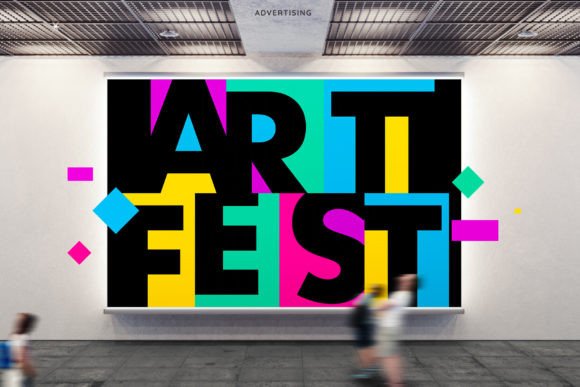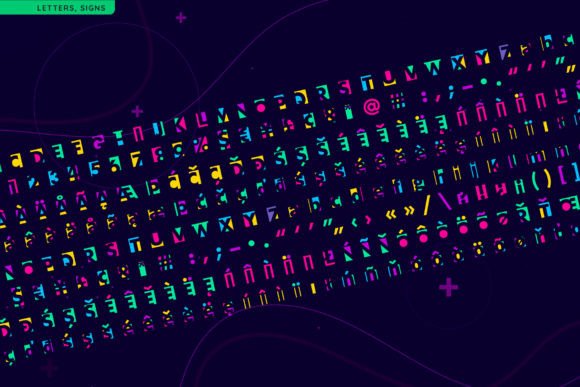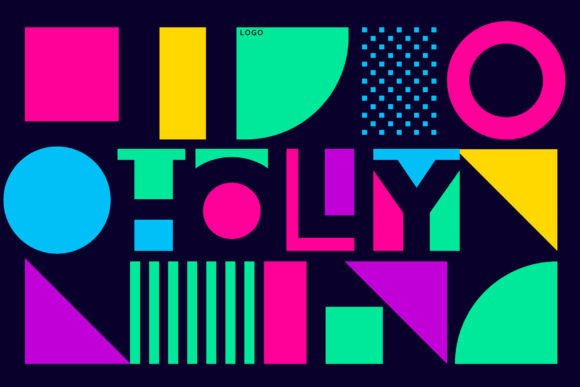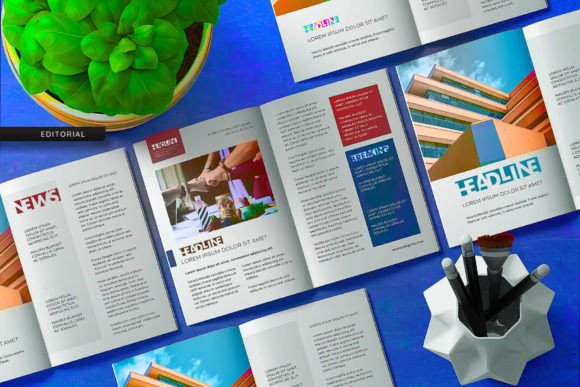
Introducing Festiva Font: The Ultimate Geometric Fun Display Font for Bold Party Vibes
Have you ever been in the middle of a design project, and suddenly, you just can’t seem to find the right font? I recall a particularly frustrating experience while working on a birthday party invitation design. My client wanted something vibrant, energetic, and utterly unique. After hours of scouring through font libraries, I stumbled upon the Festiva font. It was love at first sight! ✨
The Festiva font is a Geometric Fun Display Font that combines colorful shapes, bold modern colors, and Mexican or Indian festive vibes. This lively font is perfect for creating vibrant, energetic designs for parties, events, and entertainment branding, bright geometric logos, Mexican or Indian fest headlines, birthday greeting cards, and school project designs.
An Honest Review of Festiva Font
What I Love About Festiva Font
- 🎉 Vibrant and Energetic: Festiva font is designed to make a statement. Its bold, geometric shapes and colorful negative space make it perfect for designs that require a lively touch.
- ✅ Highly Versatile: This font can be used for a wide range of design projects, from party invitations to event branding, and even school project designs.
- ✨ Unique and Creative: The Festiva font’s unique blend of geometric shapes and festive vibes makes it stand out from other fonts in the market.
While the Festiva font is an amazing design tool, there are a few things to keep in mind: 🤔
- ⚠️ Legibility at Small Sizes: Due to its bold and geometric nature, the Festiva font may not be the best choice for small font sizes or body text.
- ⚠️ Color Limitations: While the font comes with a range of color options, it may not be suitable for designs that require a specific color scheme or branding.
The Backstory of Festiva Font
The Festiva font was designed with the intention of capturing the vibrant and energetic spirit of Mexican and Indian festivals. The designer wanted to create a font that would be perfect for designs that require a bold and playful touch. With its unique blend of geometric shapes and festive vibes, the Festiva font is sure to become a favorite among designers and crafters.
| Author | artyway |
Q: What is the Festiva font best used for?
A: The Festiva font is best used for designs that require a bold, playful, and energetic touch, such as party invitations, event branding, and school project designs.
Q: Is the Festiva font suitable for body text?
A: Due to its bold and geometric nature, the Festiva font may not be the best choice for body text or small font sizes.
Q: Is the Festiva font available in different languages?
A: The Festiva font may be available in different languages, but it’s best to check with the font designer or foundry for specific language support.